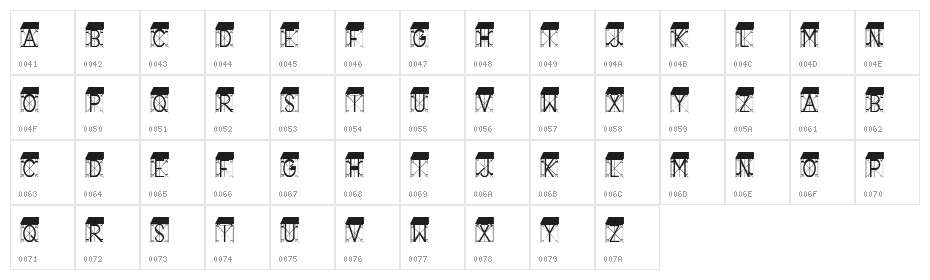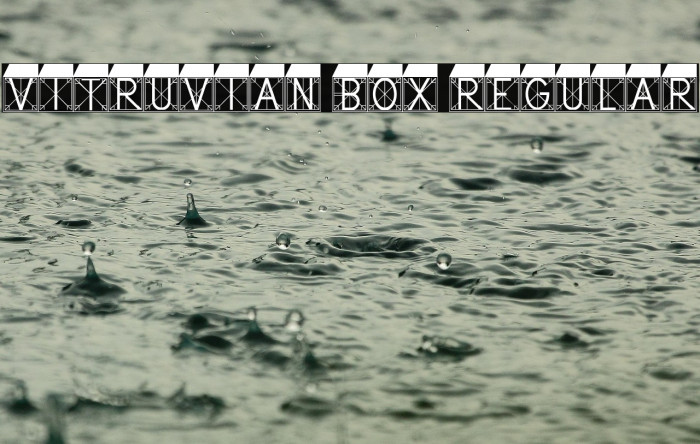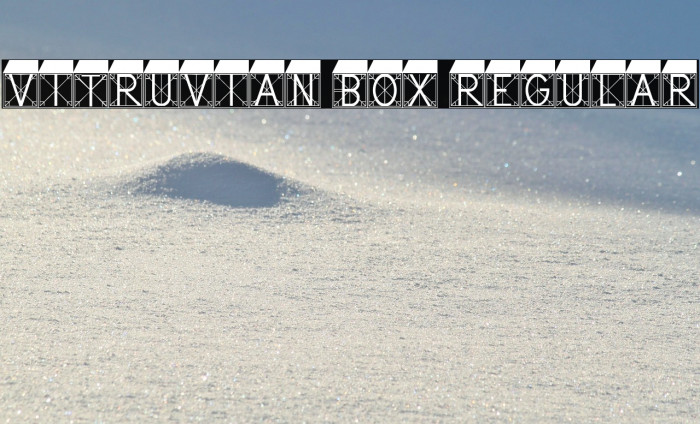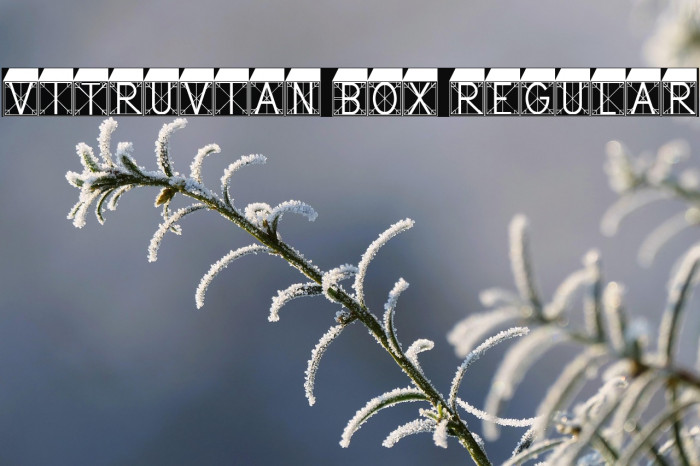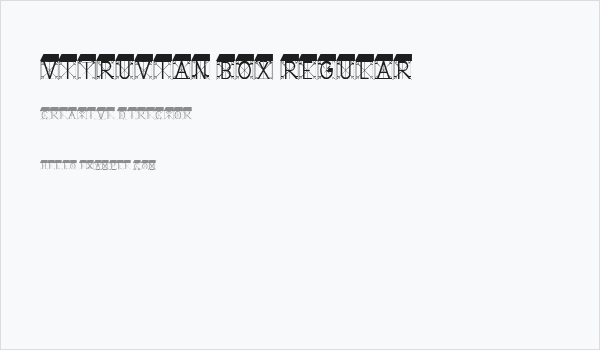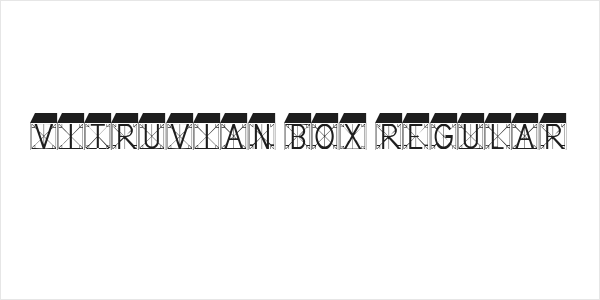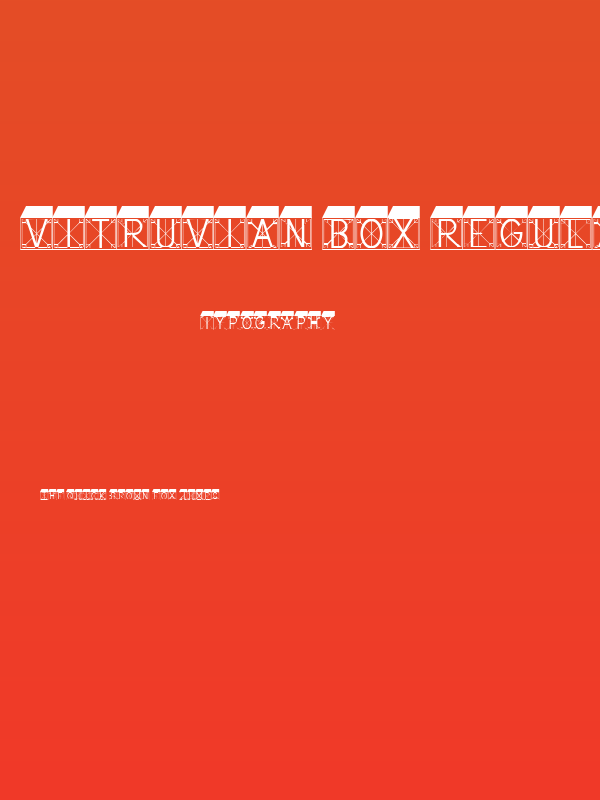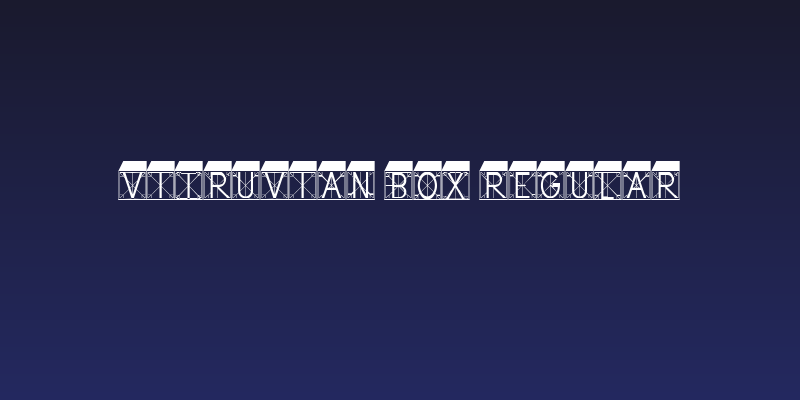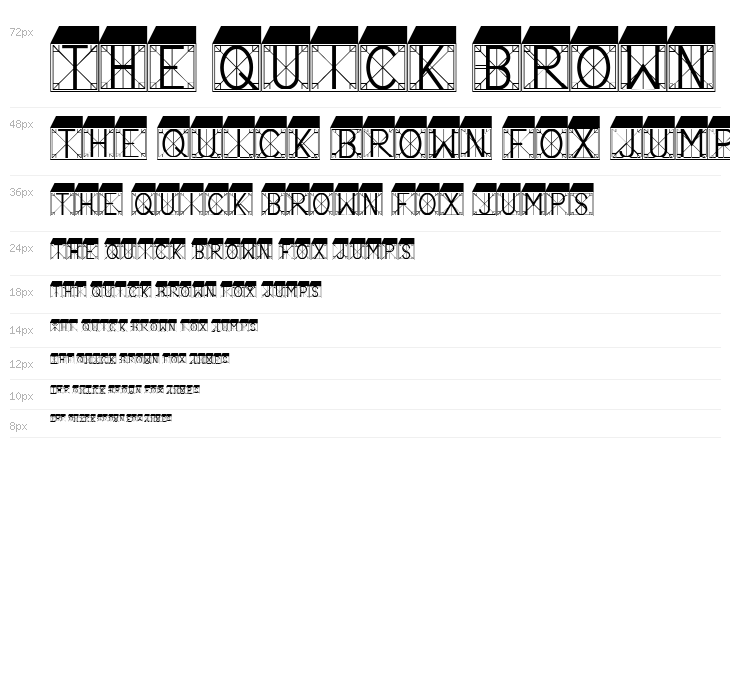
Vitruvian Box Regular Font
Vitruvian Box Regular Description
This font features a unique and artistic design, incorporating geometric elements and a box-like structure around each character. The letters are enclosed within square frames, with intricate line work and shading that give a three-dimensional effect. The style is reminiscent of architectural blueprints, with a precise and technical aesthetic. The uppercase and lowercase letters maintain a consistent design, with the numerals and special characters following the same boxed theme. This font stands out for its decorative and structured appearance, making it suitable for creative and artistic projects.
| Proposed Projects | Ideal for architectural designs, creative posters, artistic book covers, and branding that requires a technical or structured look. |